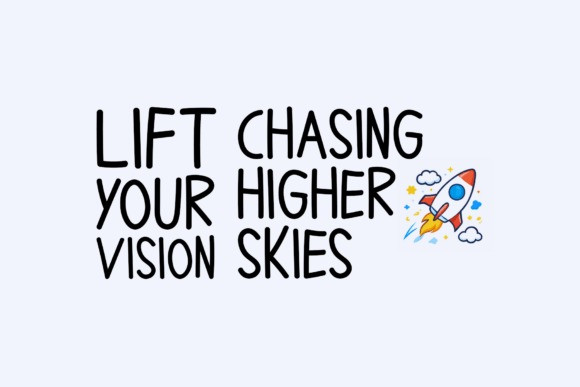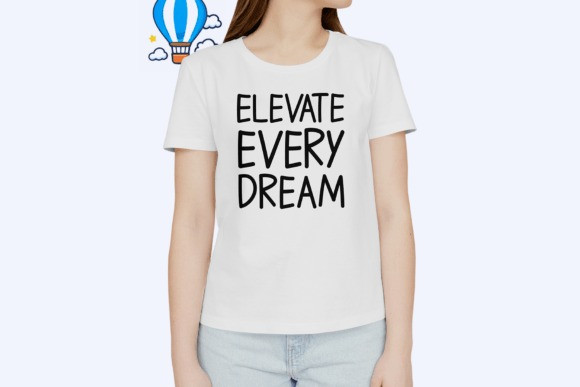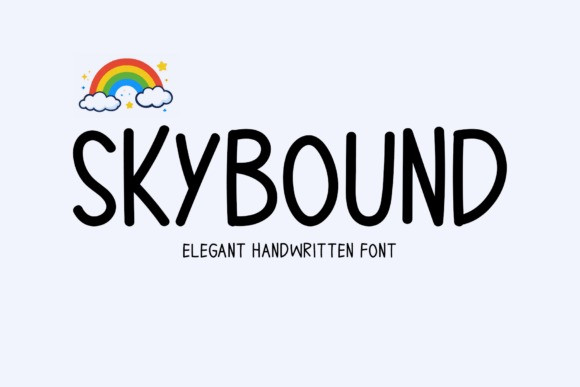
Skybound Font
Skybound Font is a fun display font created with smooth strokes and a natural, flowing rhythm. Its refined yet friendly appearance makes it a great choice for stationery, logos, t-shirts, posters, flyers, website headers, and print designs. Whether used for branding, creative layouts, or digital visuals, Skybound adds a graceful and uplifting character to every project.